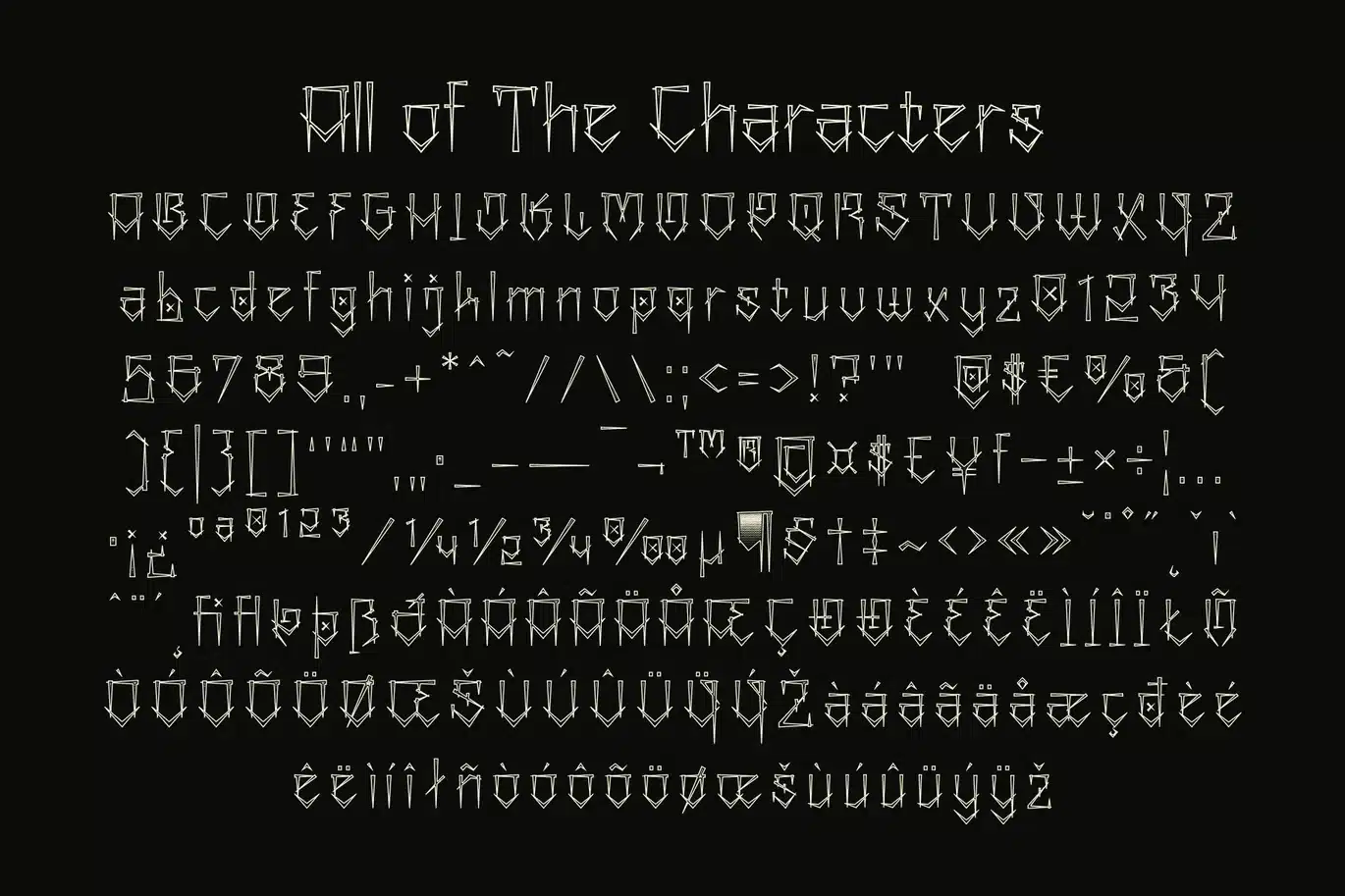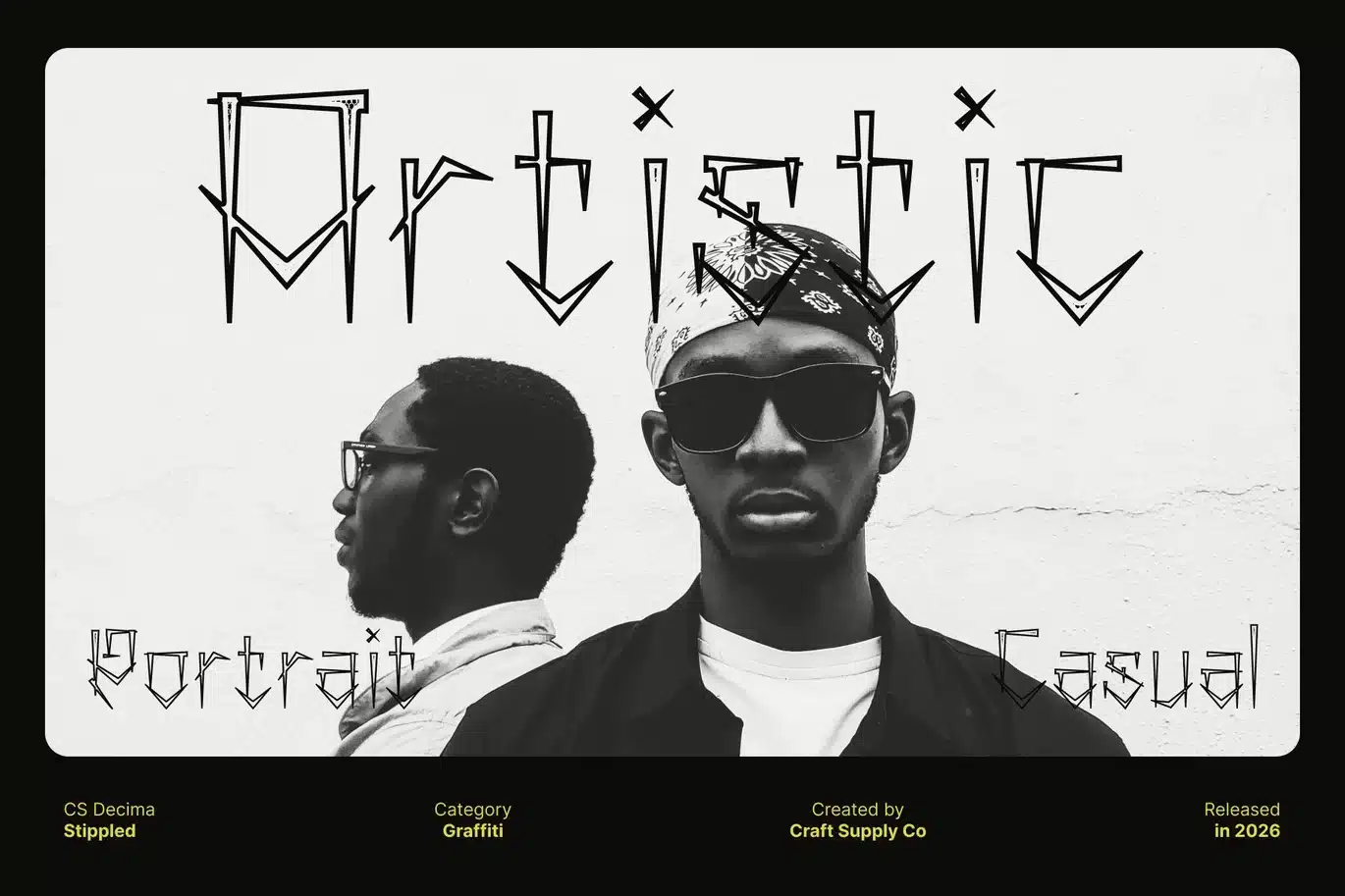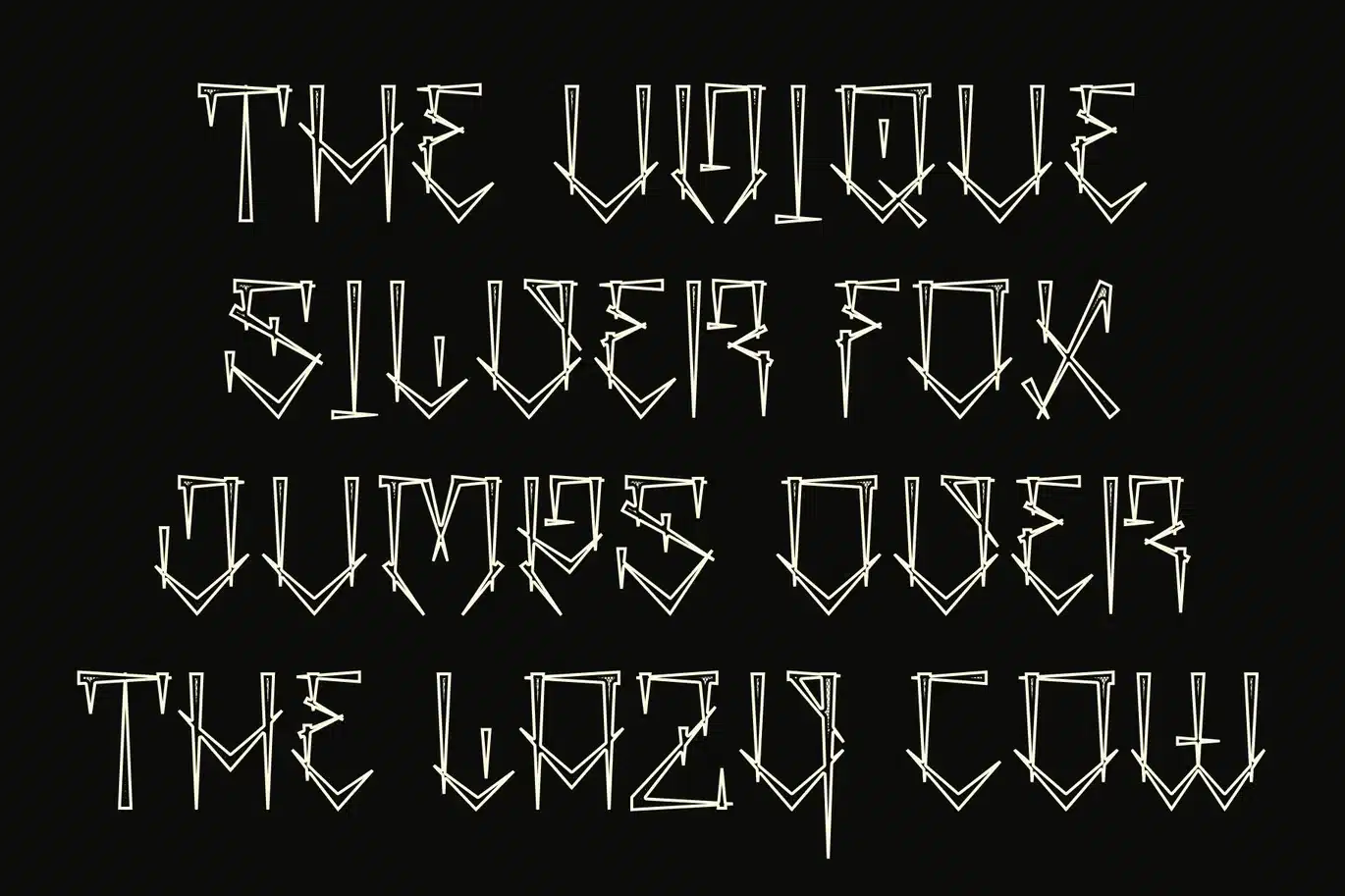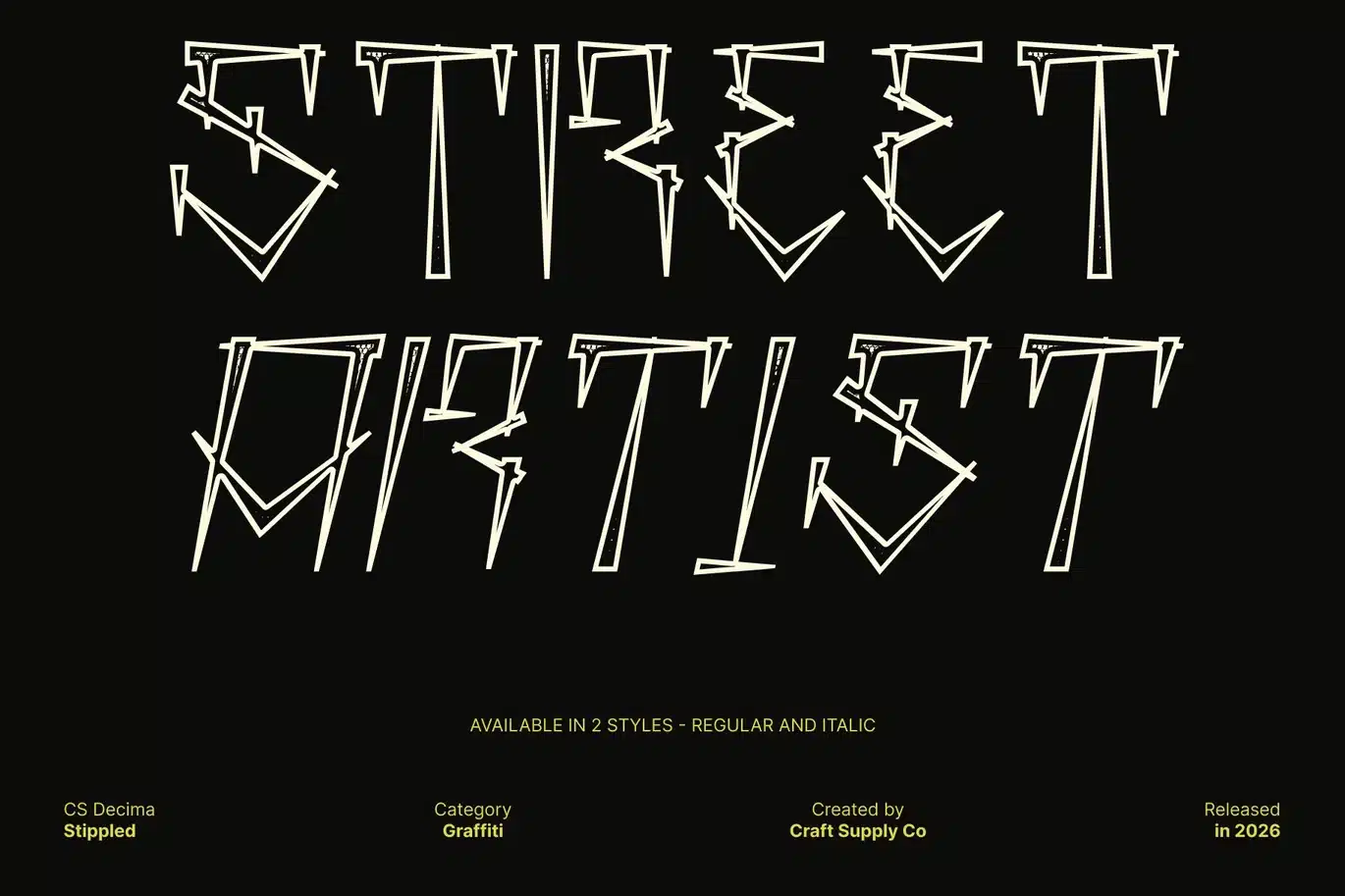
Decima Stippled Font
CS Decima Stippled – Graffiti Font with Textured Urban Expression
Urban Creativity with Stippled Street Style
This is a bold graffiti display font that captures the raw energy and expressive spirit of street art. Its dynamic curves, exaggerated strokes, and irregular shapes reflect the spontaneous style of hand-drawn graffiti lettering. Enhanced with a stippled texture, the font gains a subtle dotted surface that adds depth and a gritty, handcrafted feel echoing the layered textures often seen in urban murals and painted walls.
Expressive and Edgy Letterforms
The bold, freeform structure of this font delivers a visually striking and energetic presence. Each letter carries a sense of movement and individuality, creating typography that feels rebellious, artistic, and full of attitude. The stippled effect further enriches the design by introducing visual texture that enhances the raw character of the graffiti-inspired forms.
Authentic Street Art Influence
Rooted in the visual language of graffiti culture, this font embodies creativity, self-expression, and urban identity. Its lively shapes and textured surface bring a modern street aesthetic that feels bold, spontaneous, and visually impactful.
Perfect for Youthful and Creative Projects
This is ideal for youth-oriented, music posters, event flyers, social media visuals, and urban-themed designs. By combining graffiti-inspired letterforms with a textured stippled finish, the font delivers a powerful street-style personality that helps designs stand out with energy and authenticity.